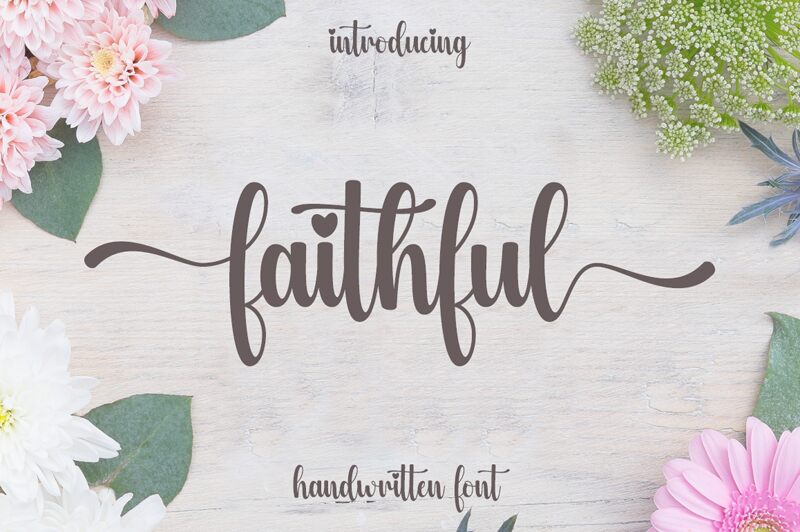
Faithful
Faithful, a creation by Hardiboy Design, evokes the warmth and intimacy of a personal note with its handwritten style. Its fluid strokes and variable line thickness suggest a blend of casual elegance and playful approachability. This font carries a sense of authenticity that can infuse projects with personality and charm.
Ideal for designs that require an organic touch, Faithful shines in contexts such as wedding invitations, greeting cards, and branding for boutique businesses. Its aesthetic appeal brings a human element to digital spaces, making it perfect for social media graphics or any platform where a personal connection is key.